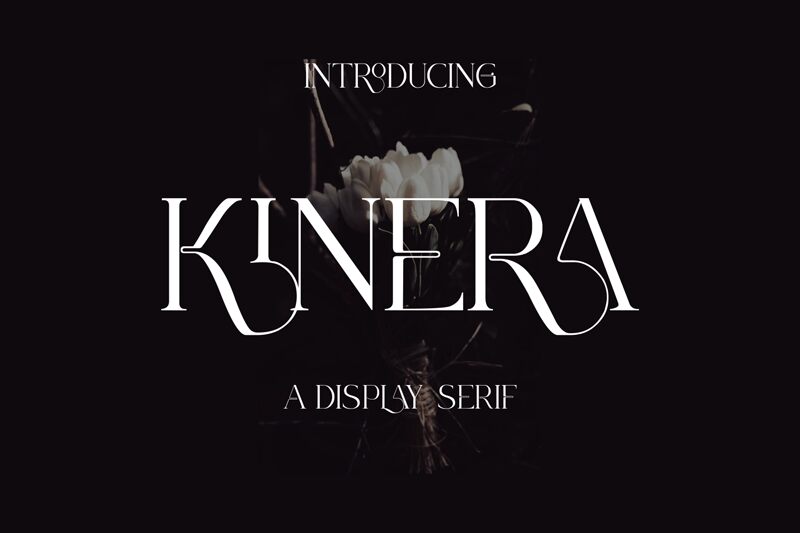
Kinera
The Kinera font, crafted by zamjump, is a striking serif typeface that exudes elegance and sophistication. Its refined design features sharply defined serifs and graceful letterforms, offering a perfect blend of classic style and modern flair. The expanded characteristics give the font a commanding presence, making it ideal for headlines and branding projects.
Whether you're designing for print or digital media, this free font provides versatility and charm to elevate your project. Download Kinera to enhance editorial layouts or create distinctive logo designs with its unique aesthetic appeal. Perfect for designers seeking a timeless look with an edge.